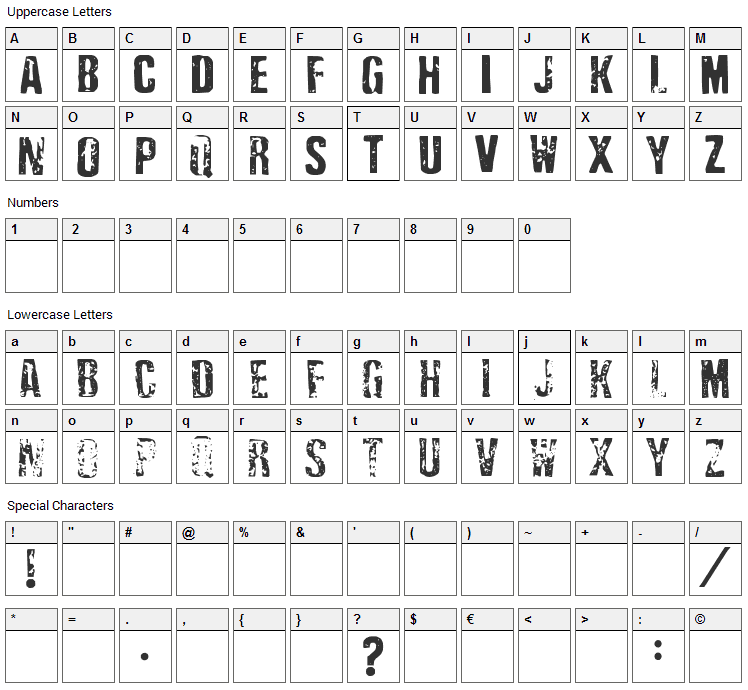
Depressionist Three Font
This is the most perfect font I ever done. Made from rubber stamps, its a package you can get in a toystore. it says: 'learn the alphabet' in swedish on the frontside.
Description:Ohoo, I bought one more rubberstamp-set today. This is the result. www.mrfisk.com